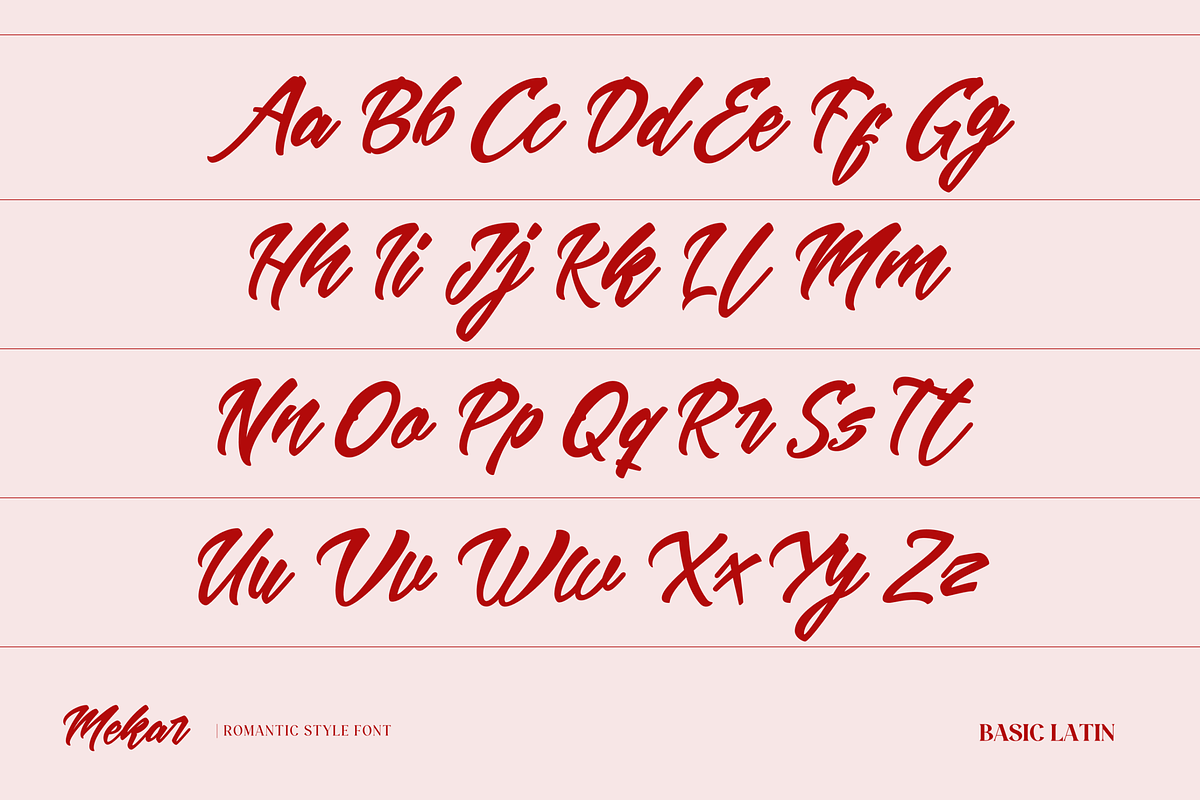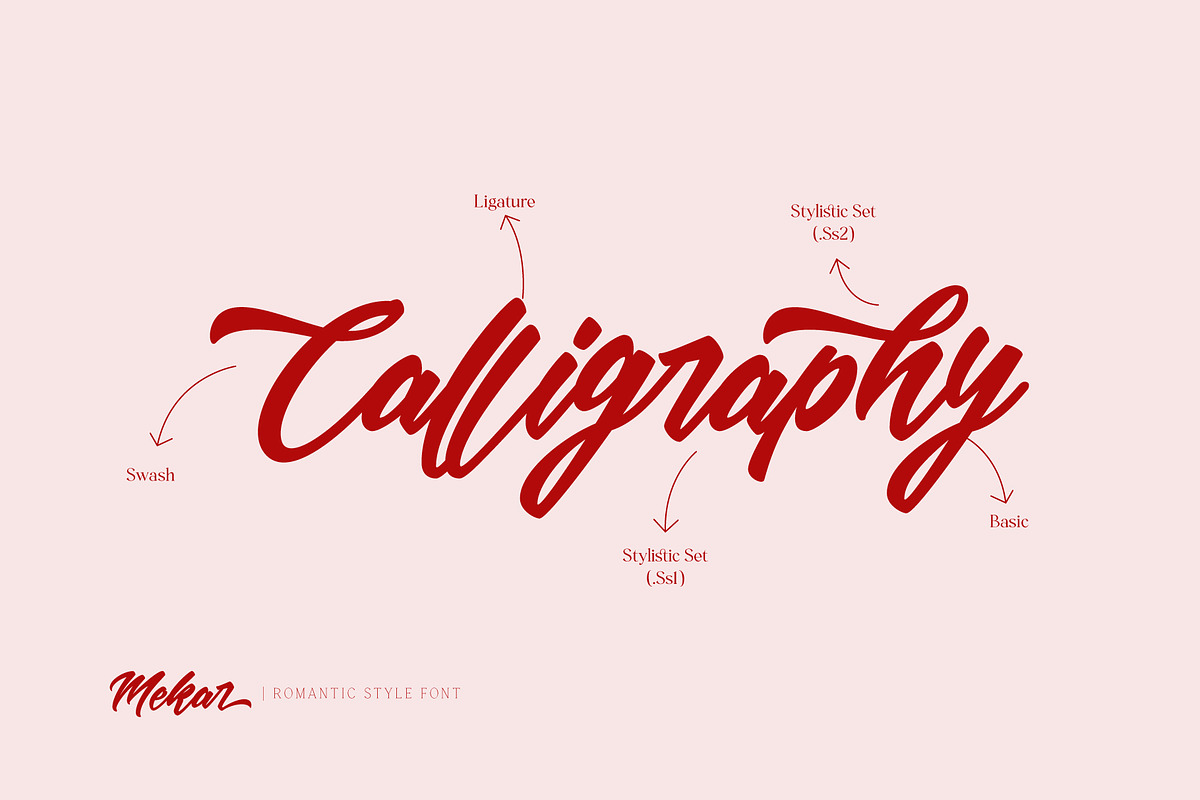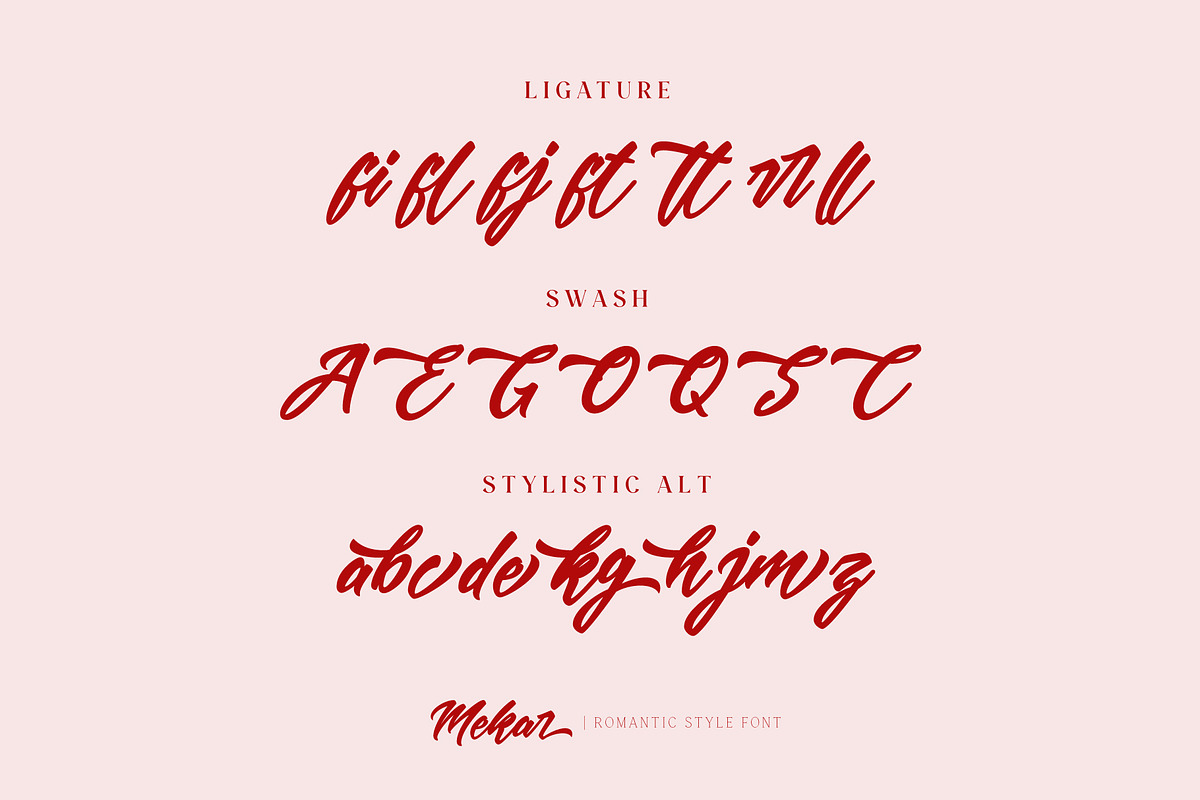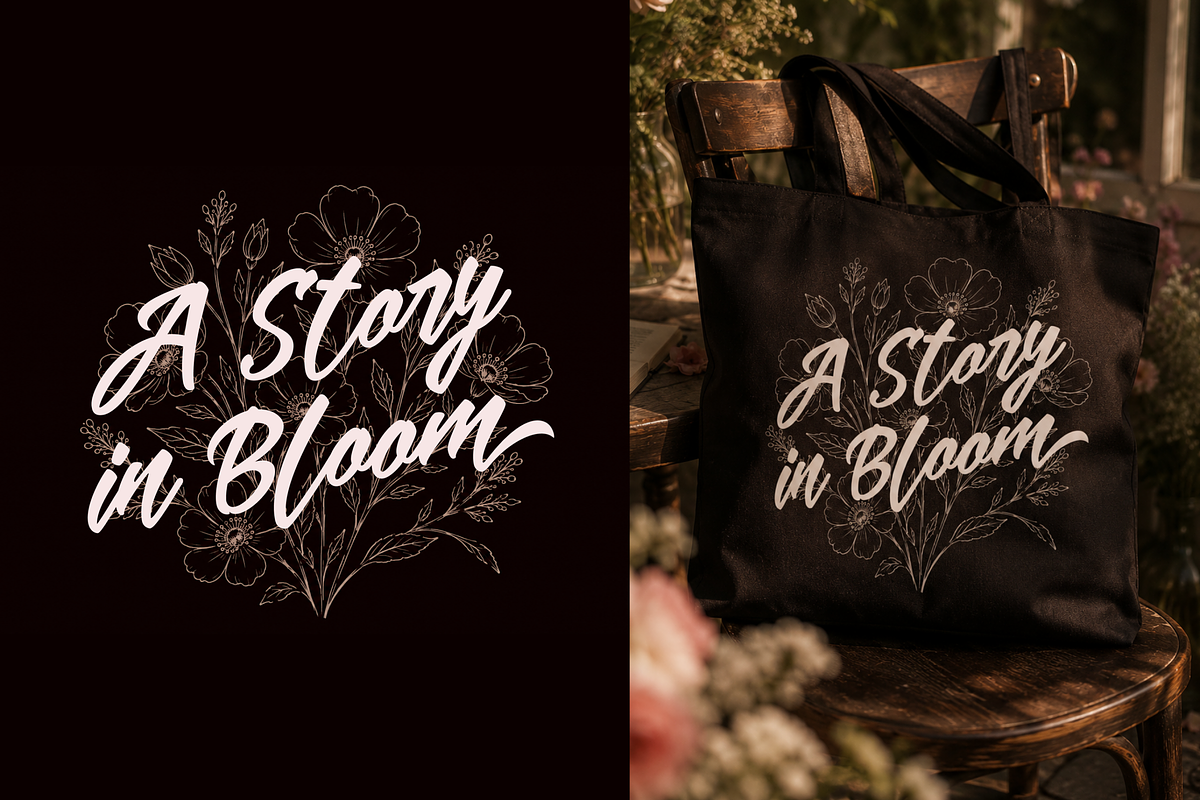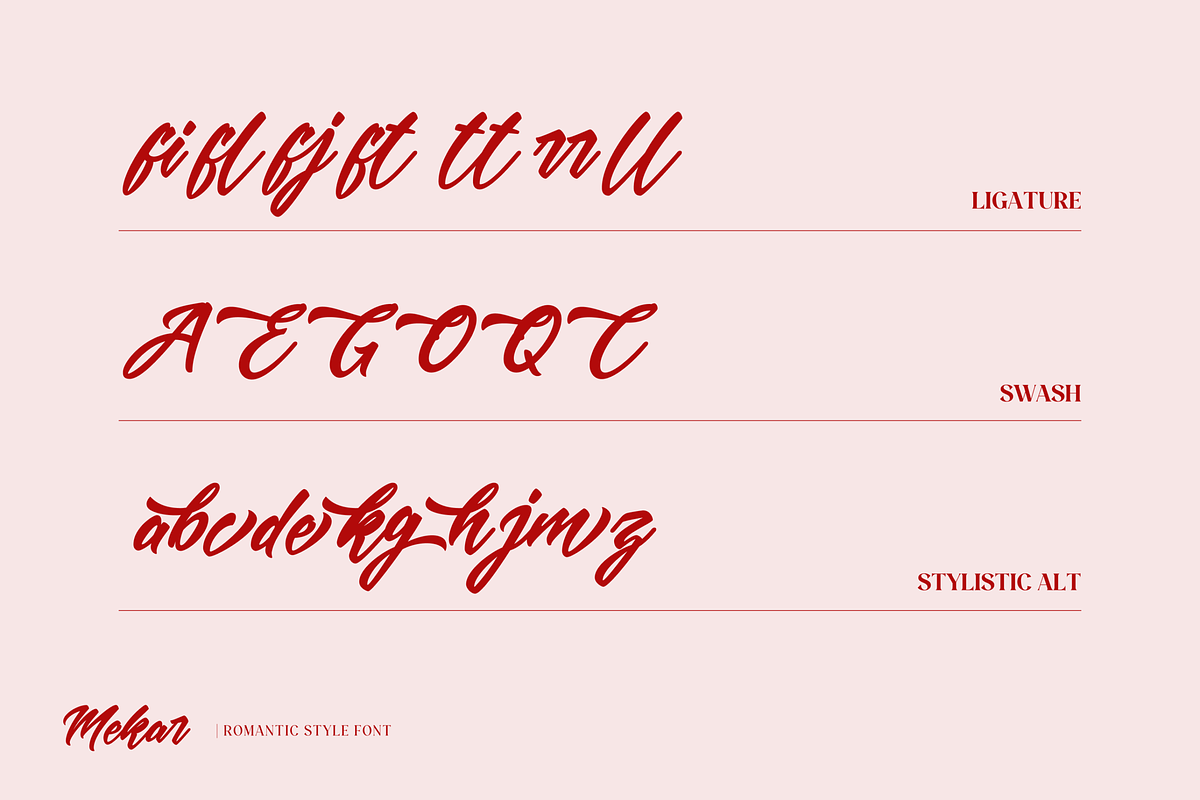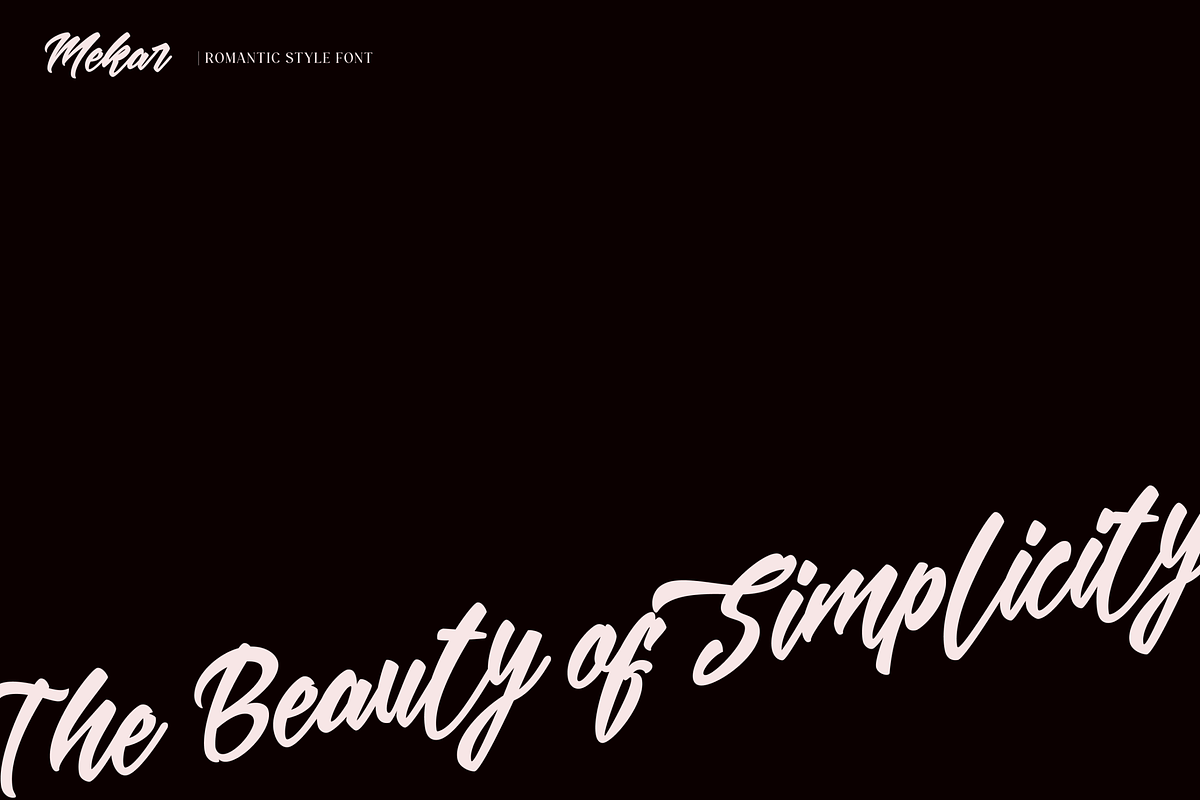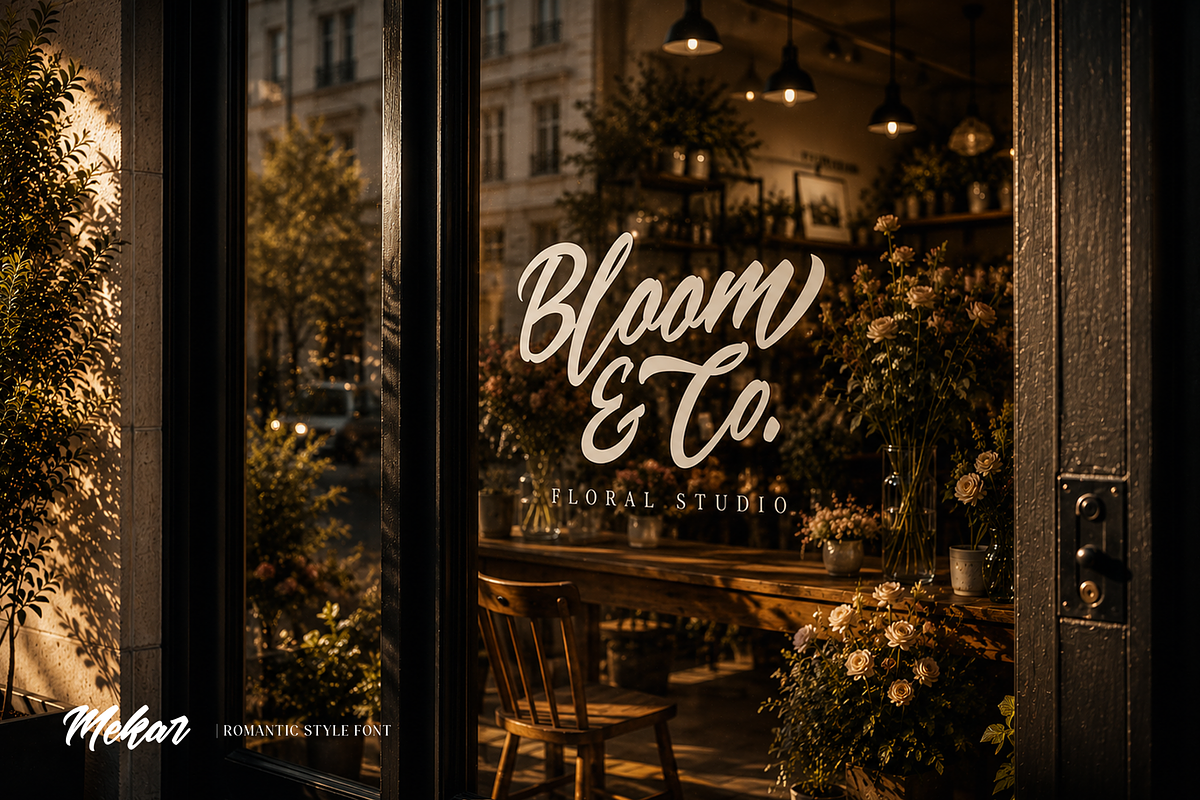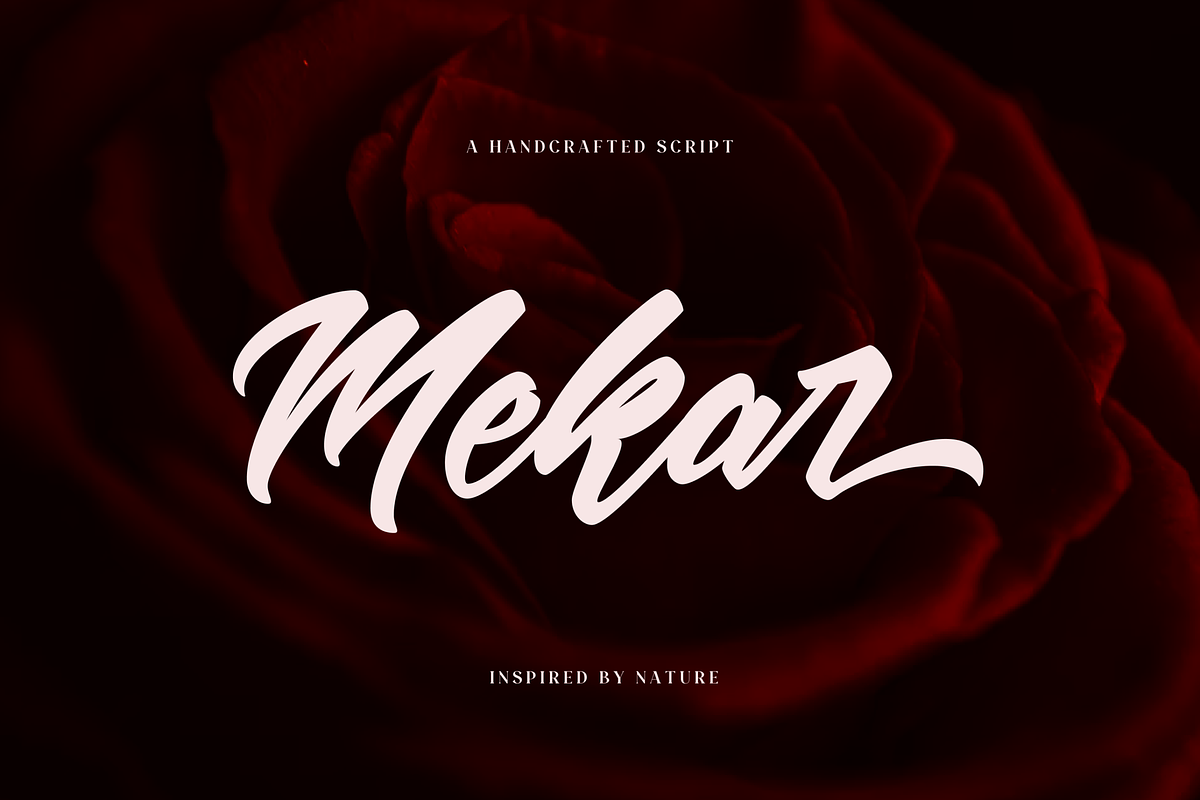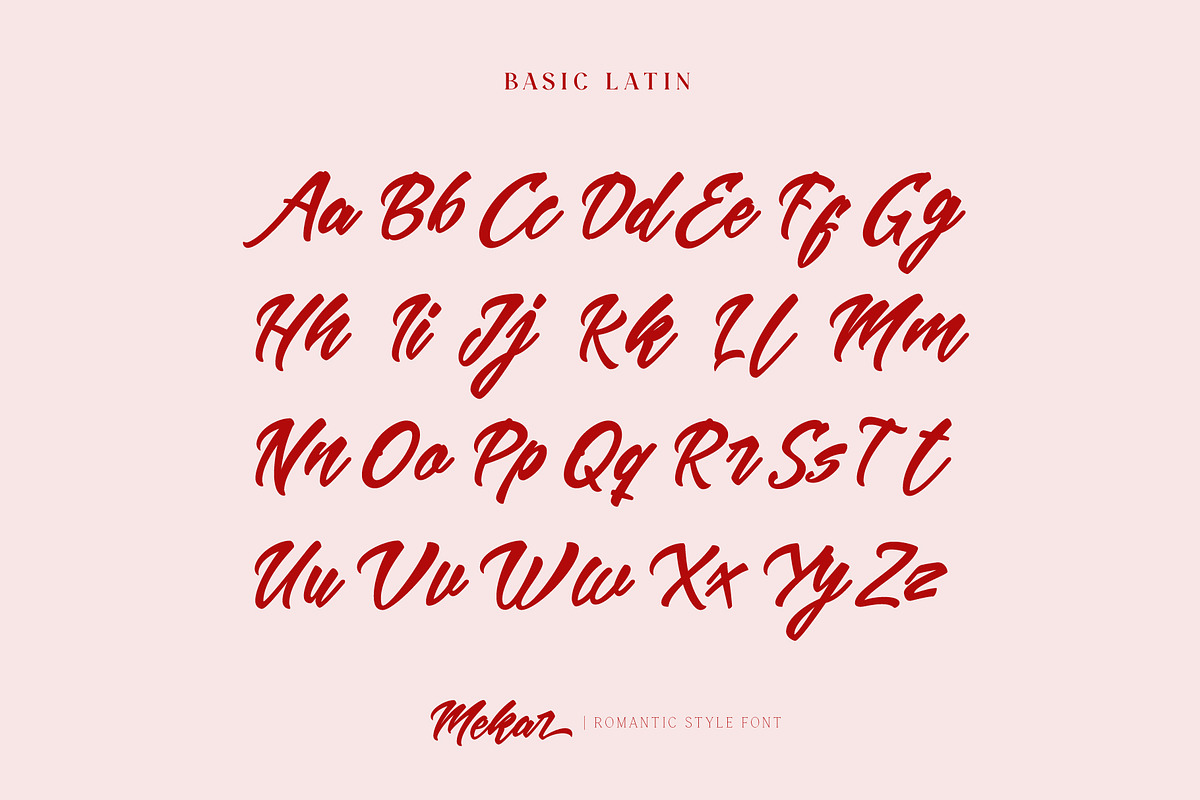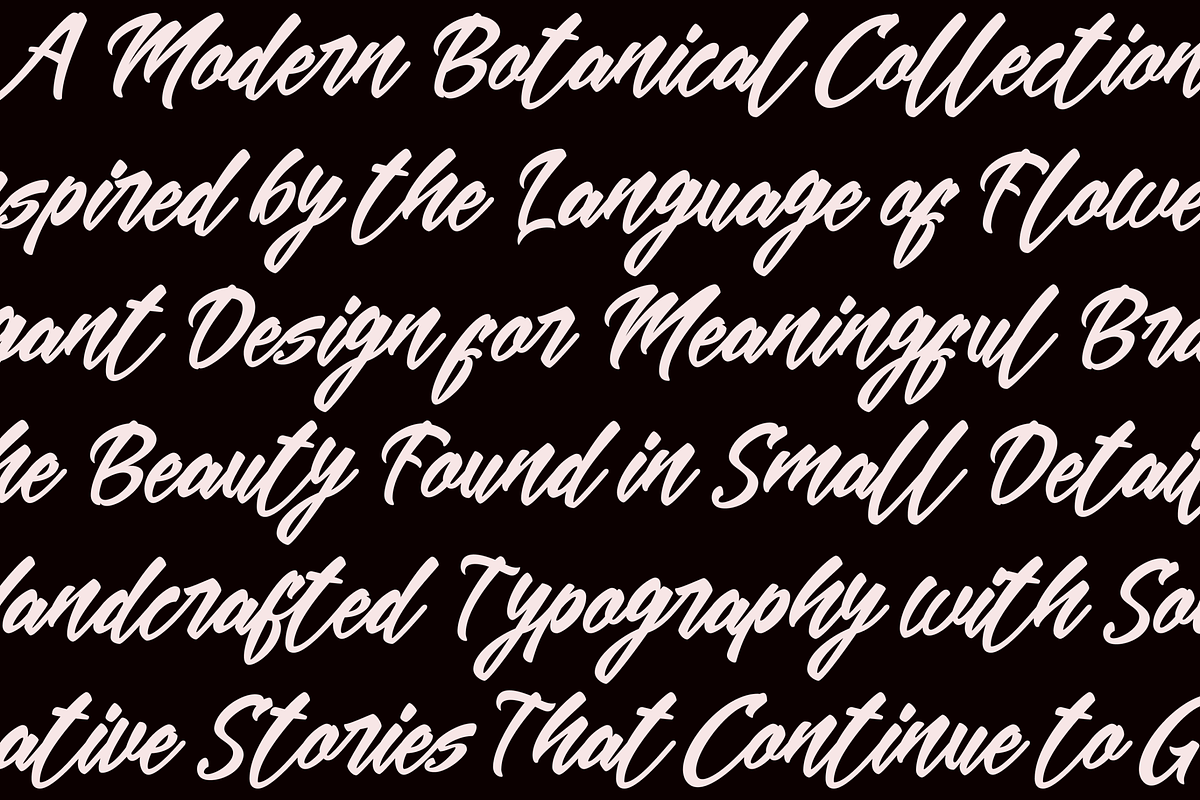
Mekar - Logotype
Mekar – Romantic Handwritten Script Font
Bring warmth, elegance, and handcrafted beauty to your designs with Mekar, a romantic handwritten script font created for logos, branding, and creative projects that deserve a personal touch.
Inspired by natural brush lettering, Mekar features flowing strokes, smooth curves, and expressive characters that create authentic typography with timeless charm. Whether you're designing wedding branding, boutique logos, cosmetic packaging, or social media content, Mekar helps your work feel sophisticated while remaining approachable.
Designed with flexibility in mind, Mekar includes beautiful alternate characters and OpenType features, allowing you to create custom lettering combinations with ease.
Branding & Visual Identity
Wedding Invitations
Beauty & Cosmetic Branding
Boutique & Fashion Labels
Product Labels
Café & Restaurant Branding
Quotes & Typography
Greeting Cards
Handwritten Script Style
Beautiful Ligatures
Swash Characters